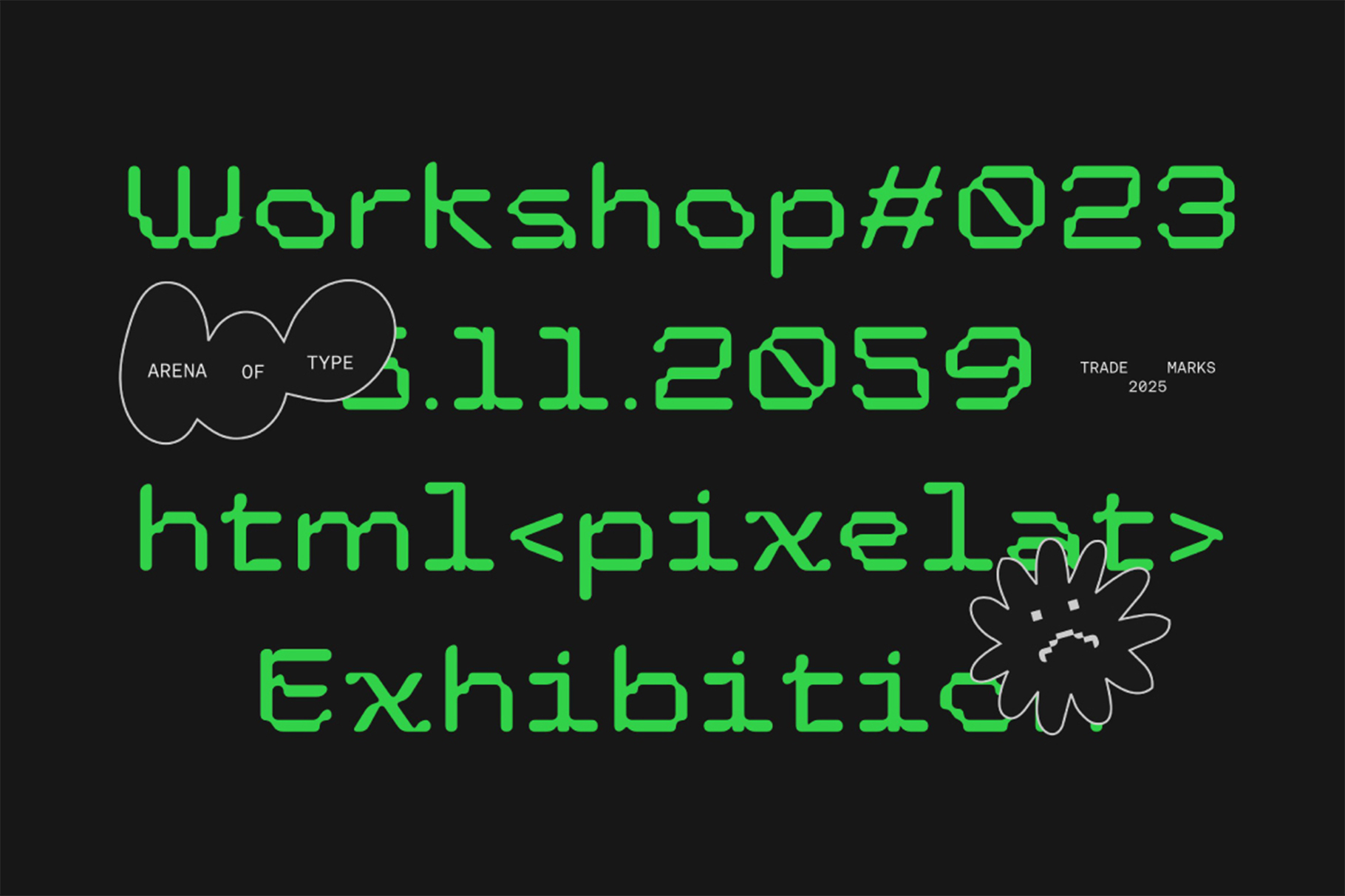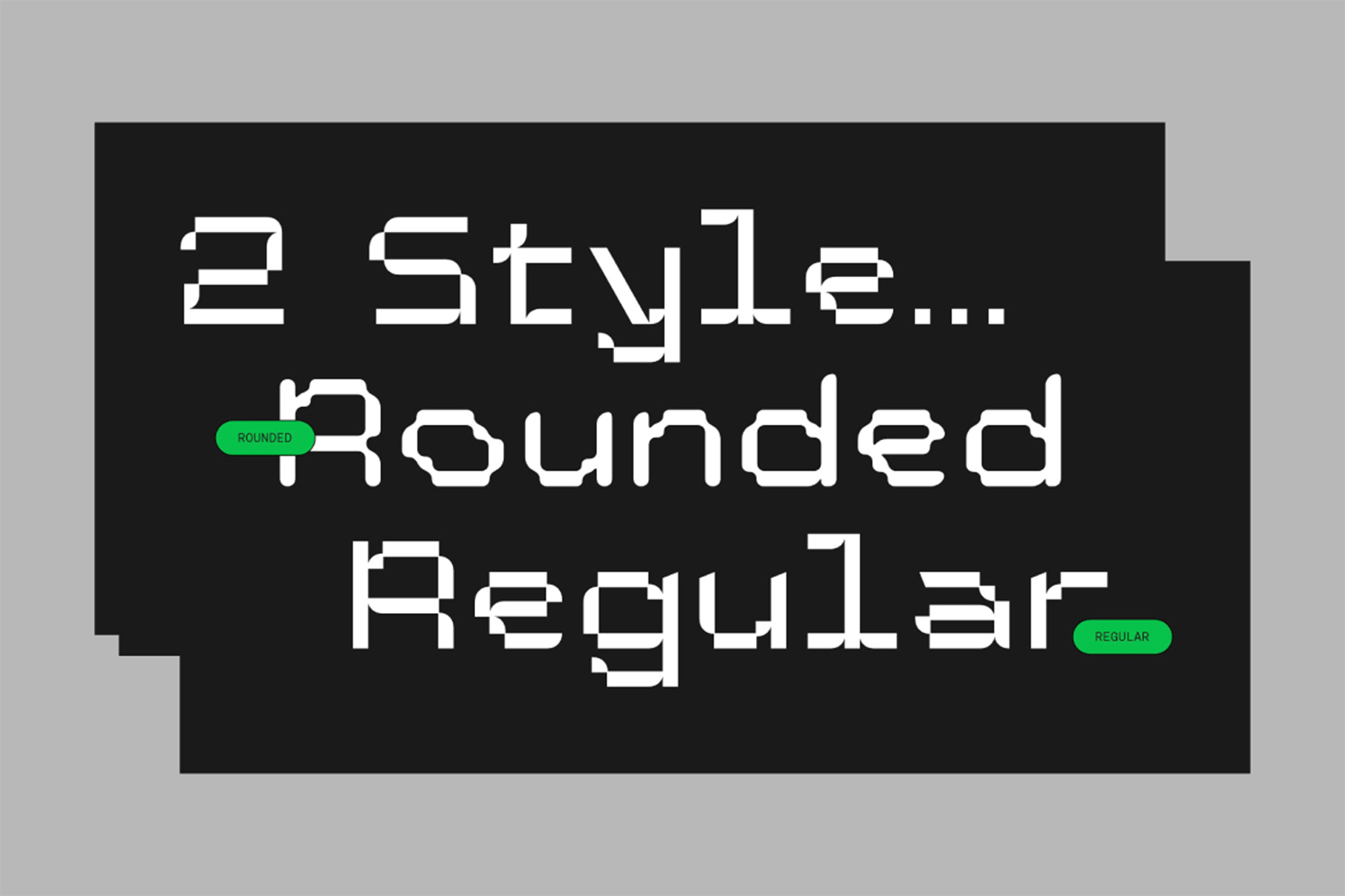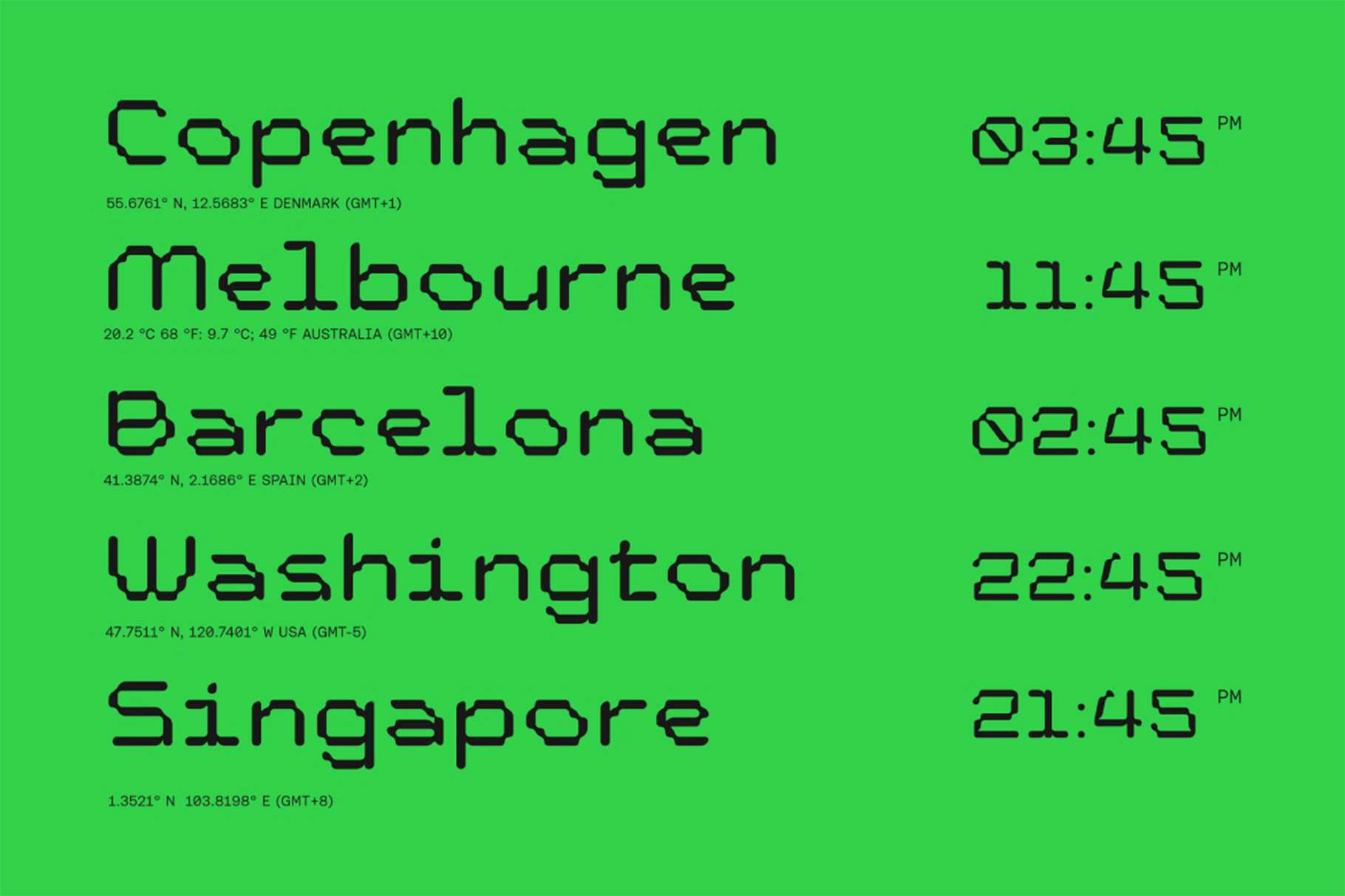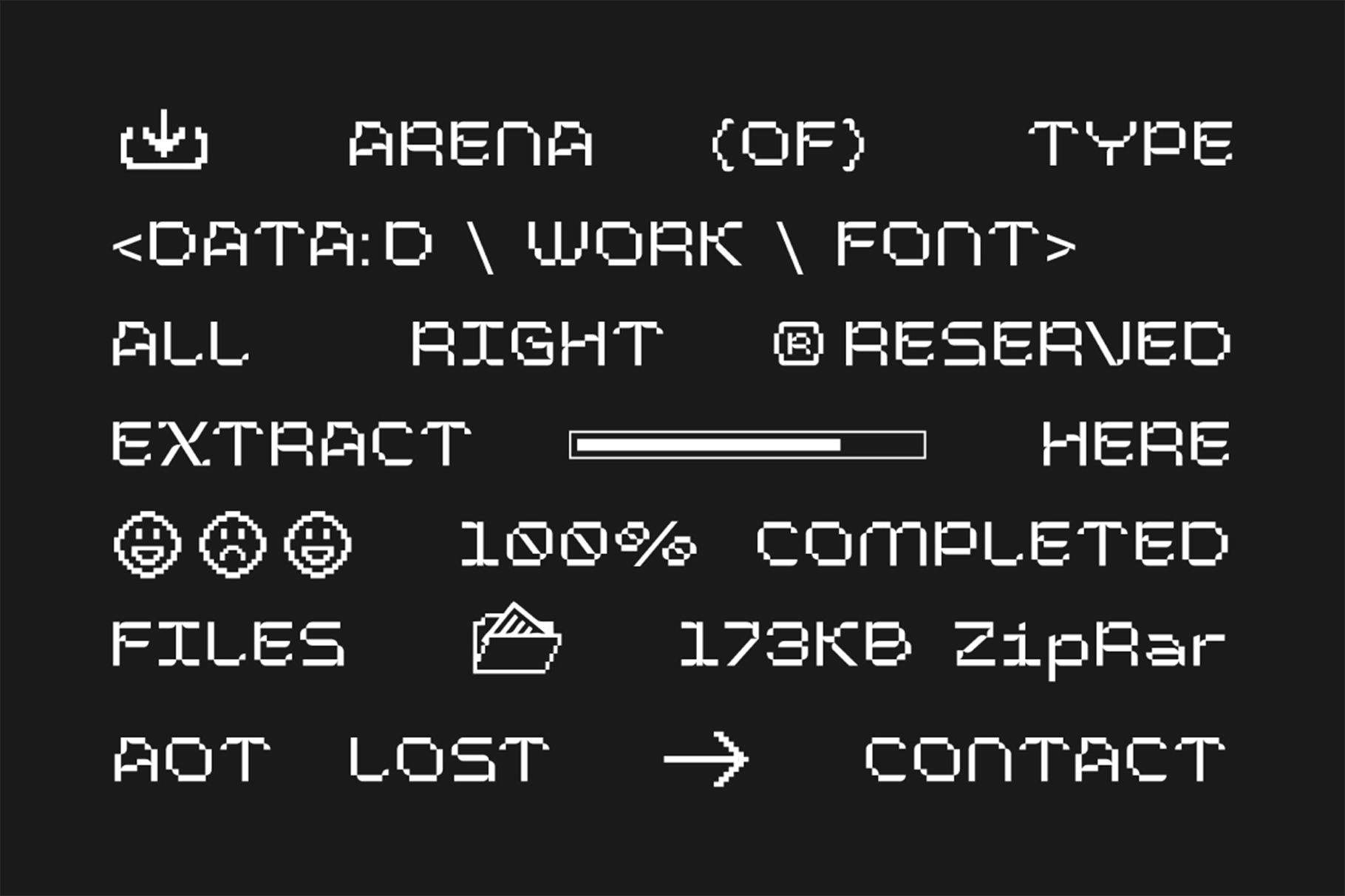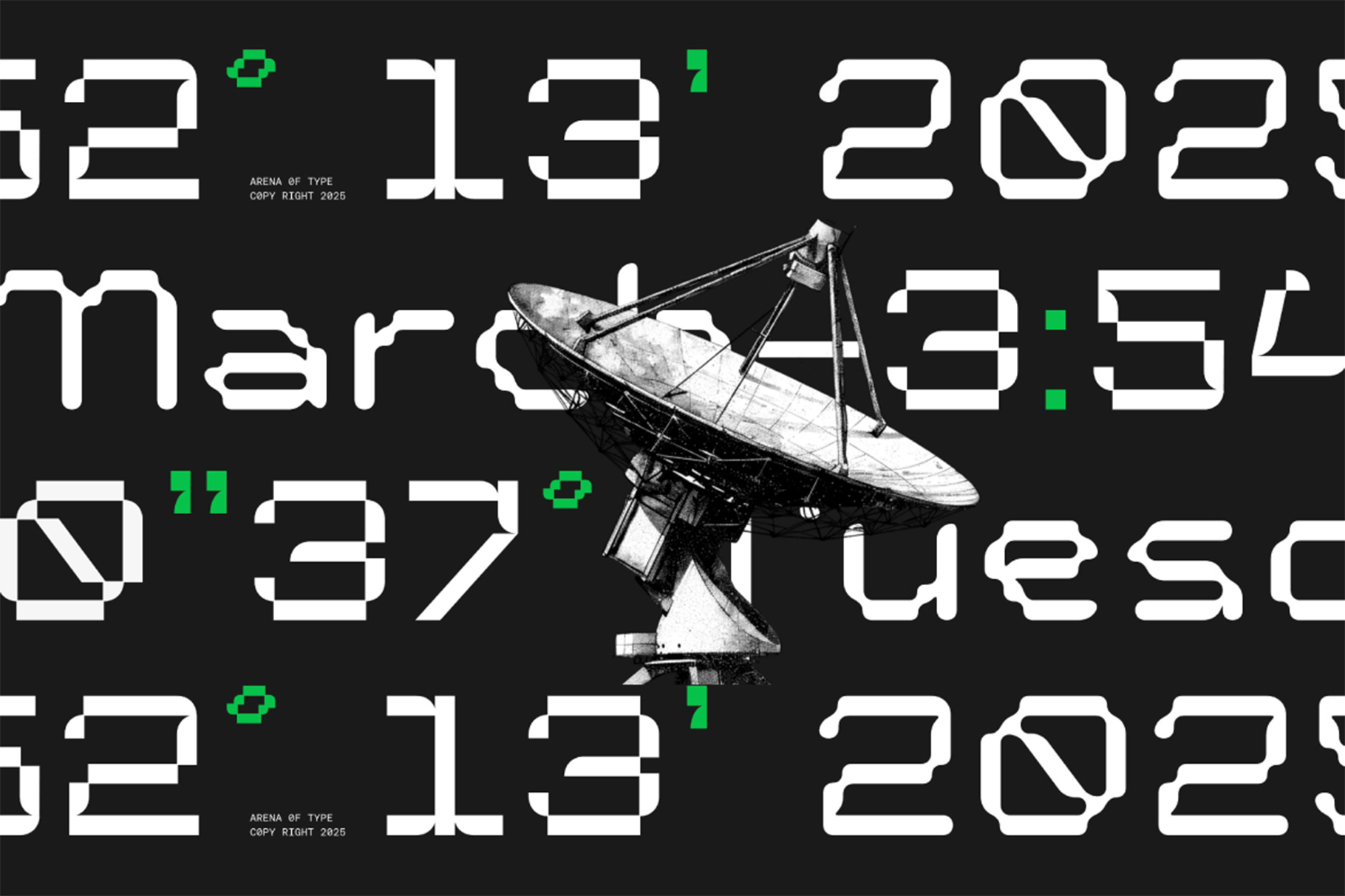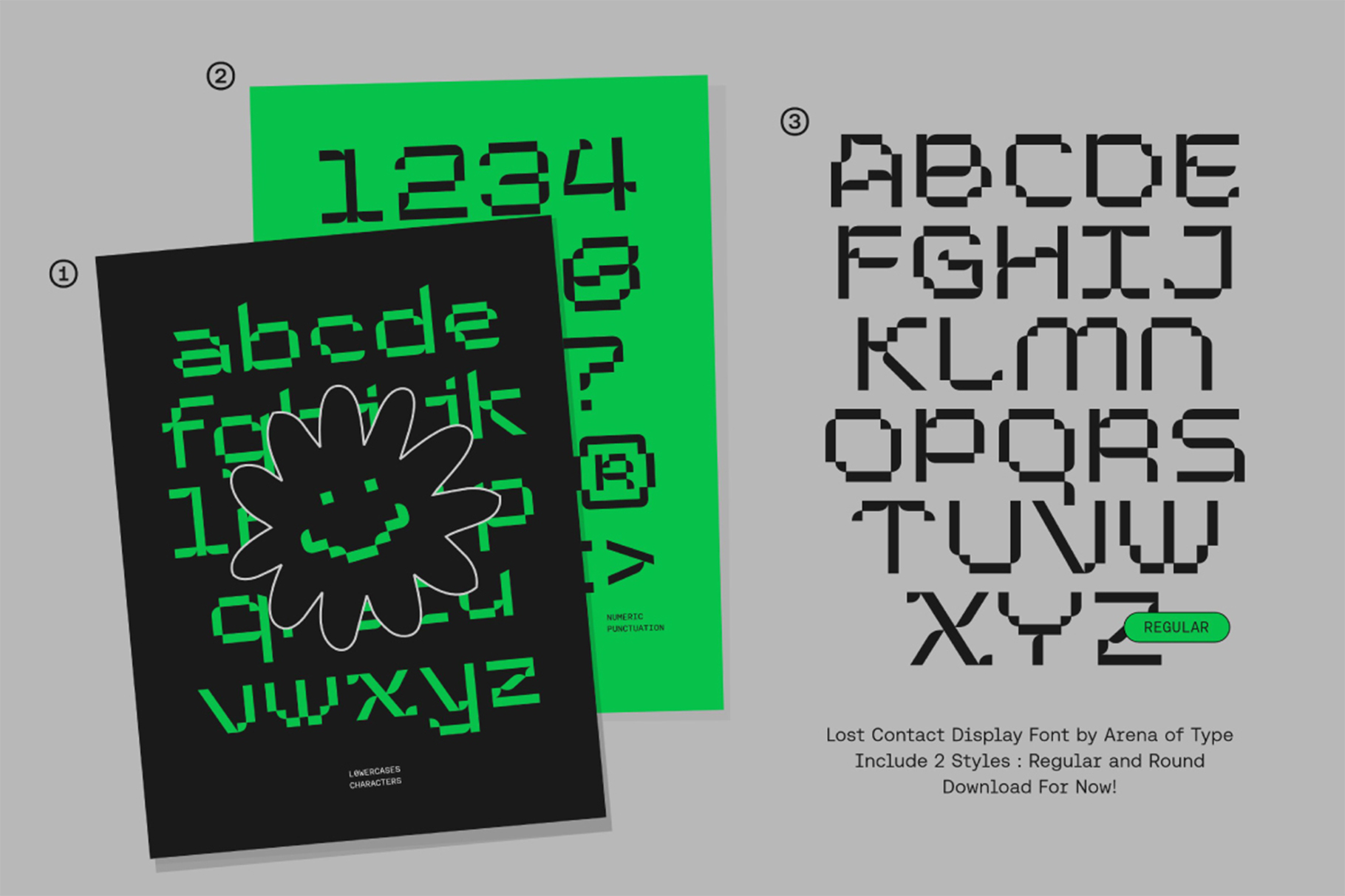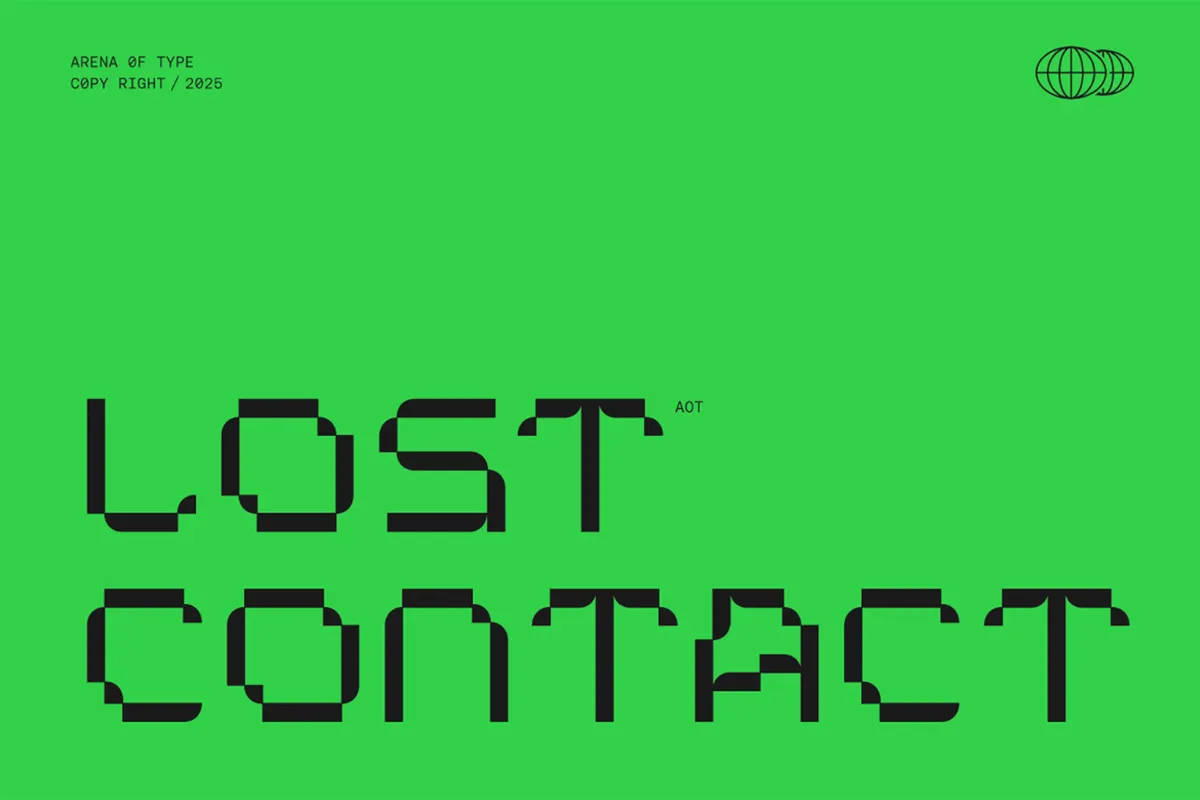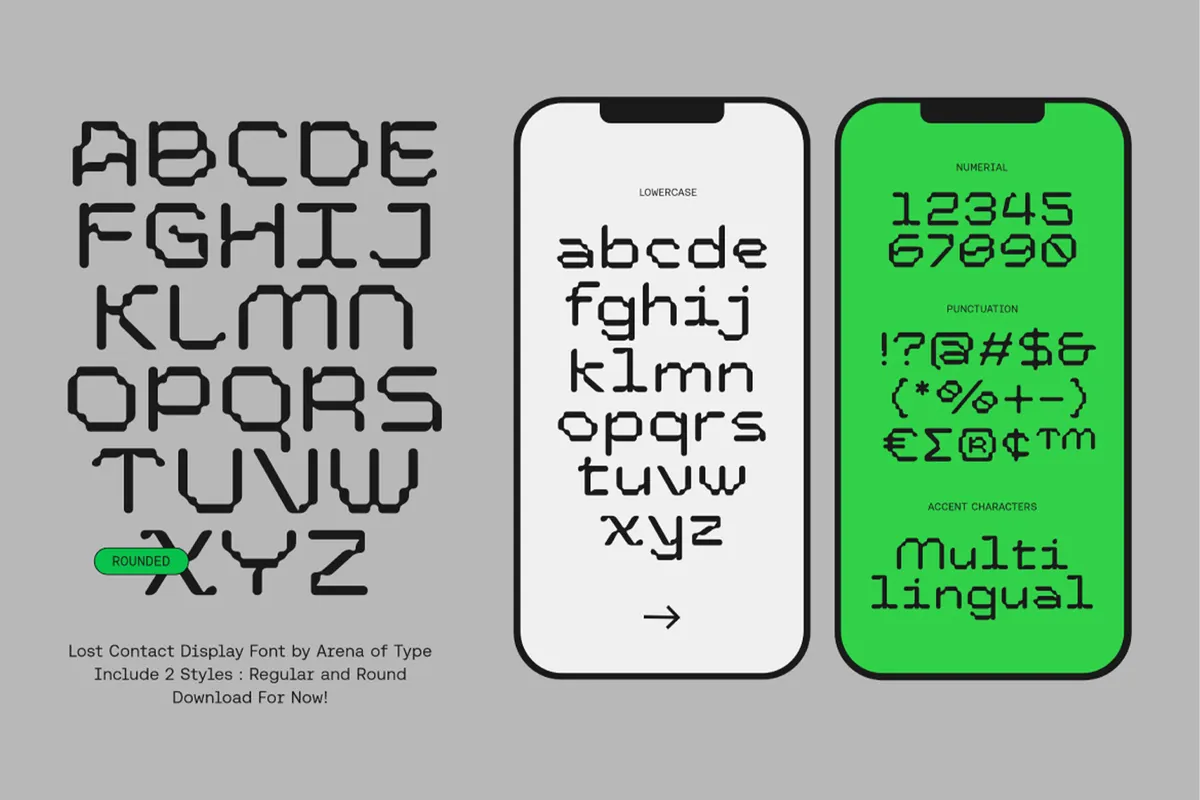
AOT Lost Contact – Contemporary Pixel Font
AOT Lost Contact – Contemporary Pixel Font is a carefully designed typeface that merges nostalgic pixel aesthetics with modern clarity and precision. Inspired by classic monospaced fonts, it delivers a structured and grid-based appearance while maintaining strong readability for today’s digital and print applications.
This versatile pixel font comes in two distinct styles—Regular and Rounded—giving designers the flexibility to shift between sharp, technical character and a softer, more approachable look. Each glyph is crafted with crisp edges and balanced proportions, ensuring consistency across headlines, UI elements, and large typographic compositions.
Perfect for gaming interfaces, pixel art projects, tech branding, UI/UX layouts, futuristic editorials, and digital campaigns, AOT Lost Contact – Contemporary Pixel Font captures the essence of retro arcade culture while fitting seamlessly into modern design systems. Whether you're building a nostalgic 8-bit experience or a sleek tech-driven identity, this font delivers pixel precision with contemporary versatility.